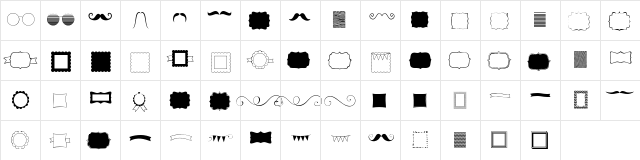
KG Flavor and Frames Regular
Design Context for KG Flavor and Frames Typeface
KG Flavor and Frames is a composed and adaptable typeface that performs quietly and consistently across a wide range of design contexts.
Pro Tip: Use KG Flavor and Frames in both headline and body roles to test its range before committing to a single application.